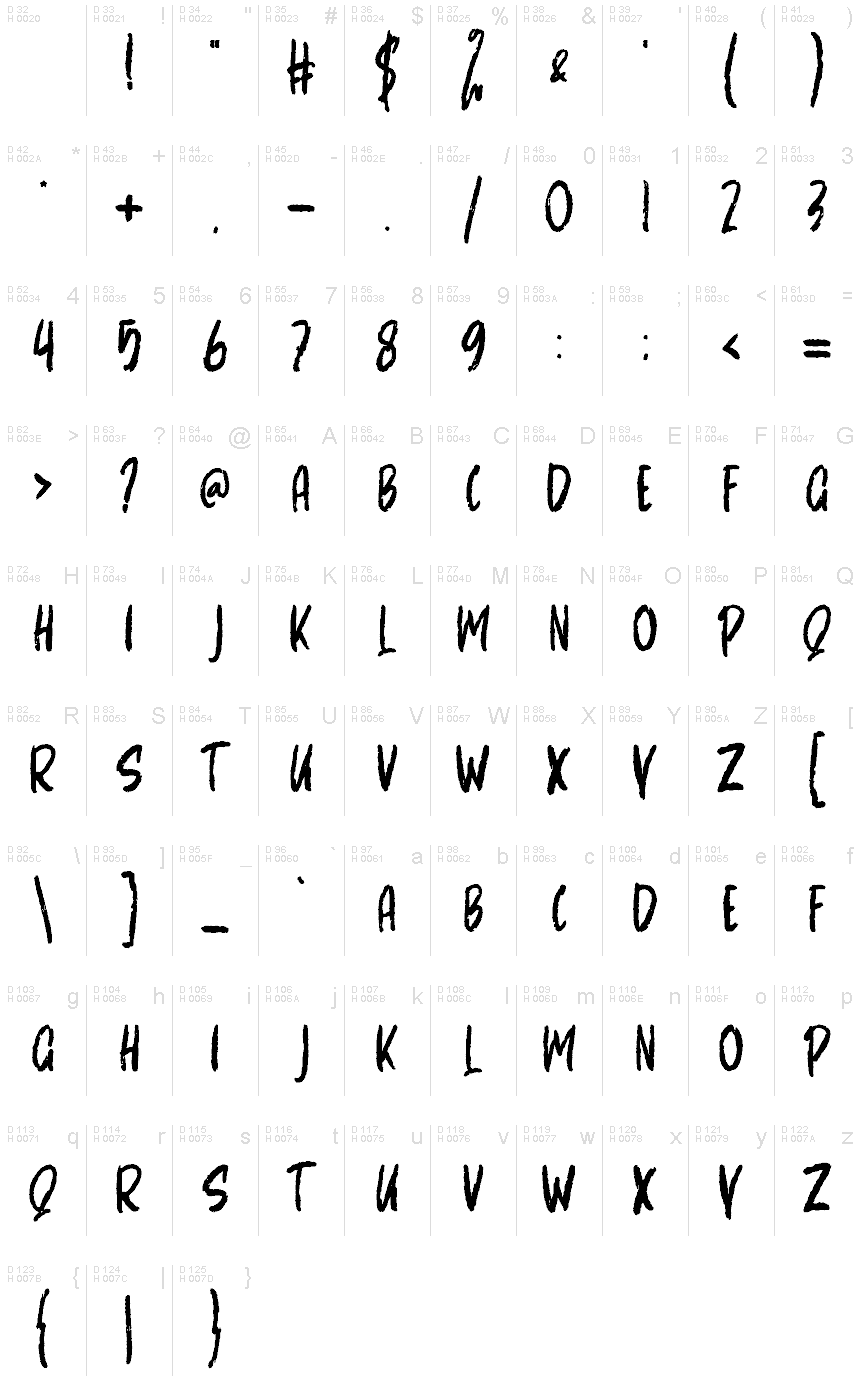
Marsby
Marsby font by Skiiller Studio is a condensed brush font with a striking distressed texture. The grungy script style gives off an edgy, raw, and expressive overall look that does not hold back in capturing viewers’ attention. Modern and impactful, the font looks great in contemporary applications related to music and youth culture branding.